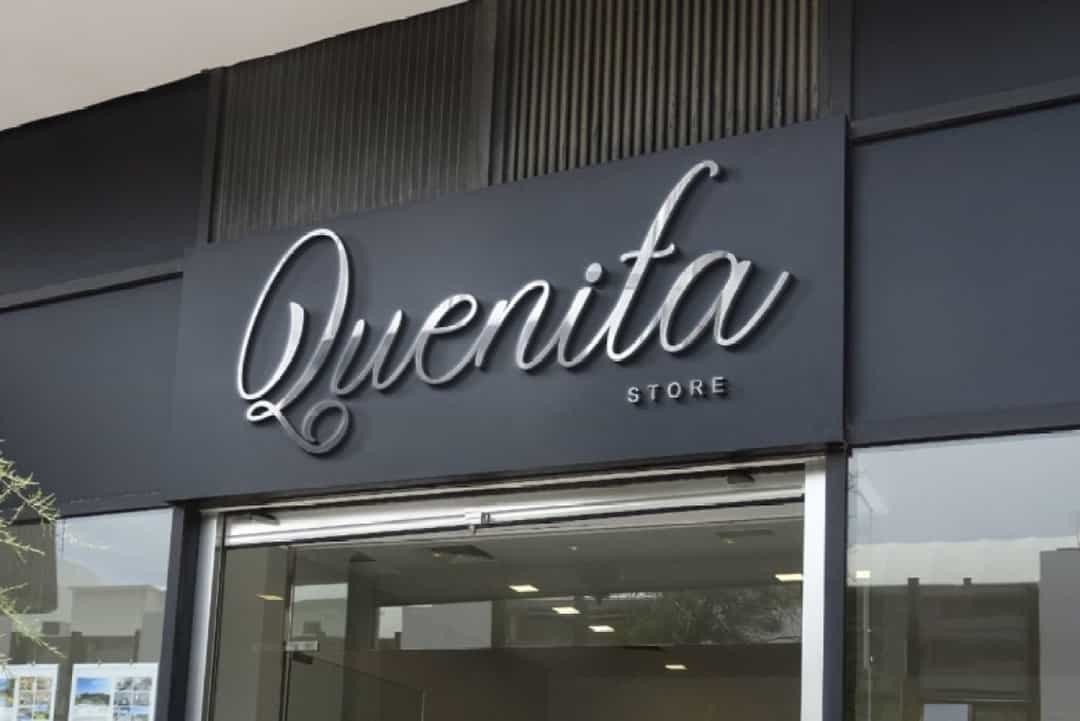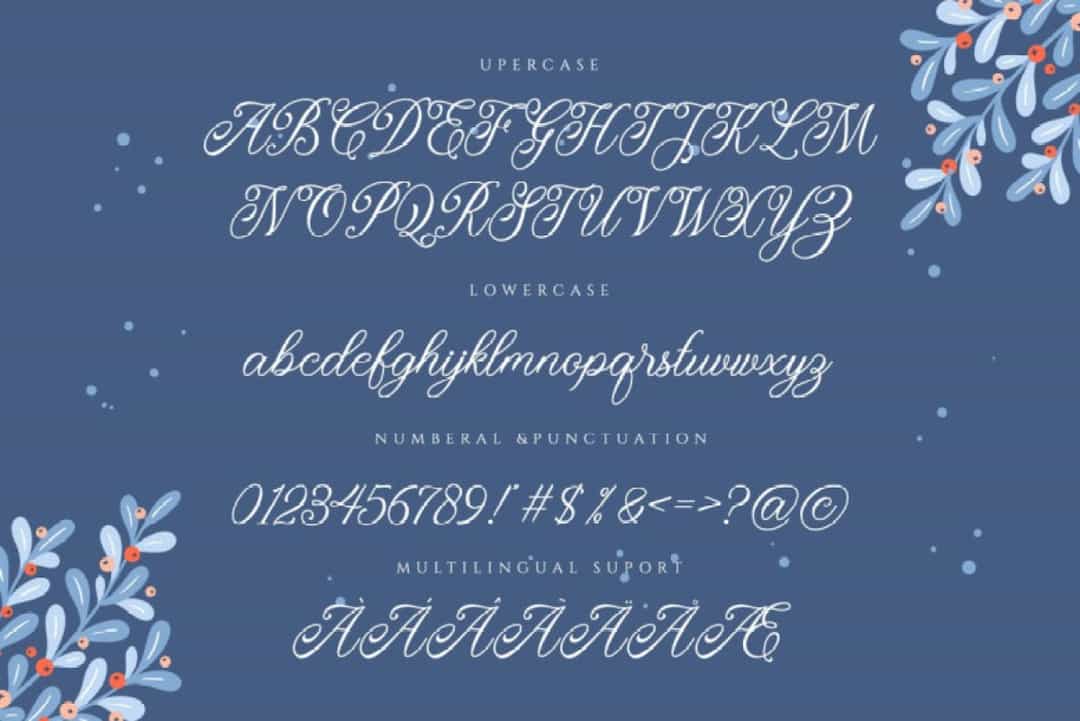
Monitha is a elegant and elegant calligraphy font. Ideal for wedding invitations, thank you cards and quotes, greeting cards and business cards and logos; PUA encoded to easily access all its glyphs and swashes and characters!